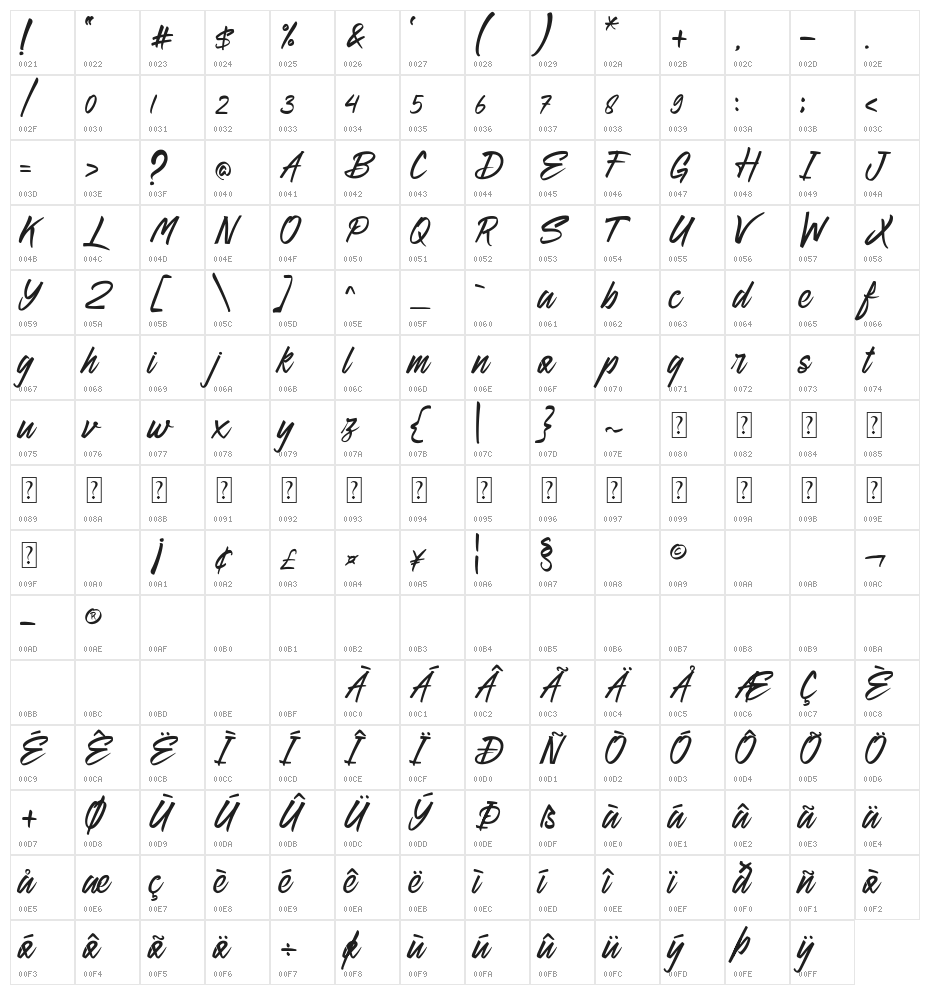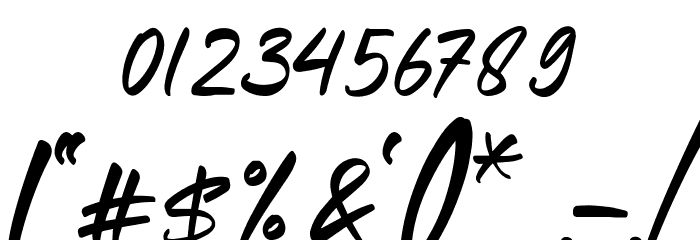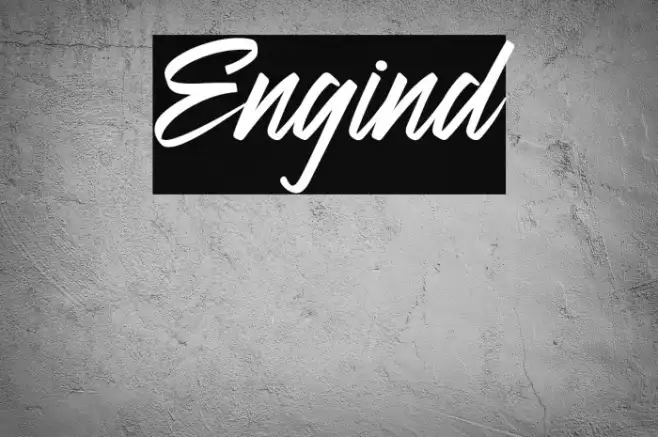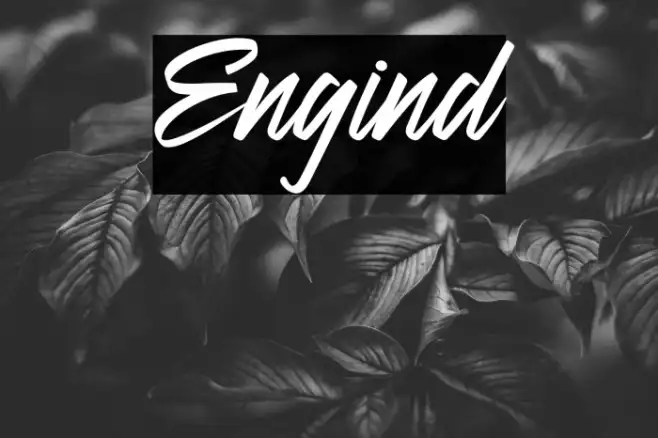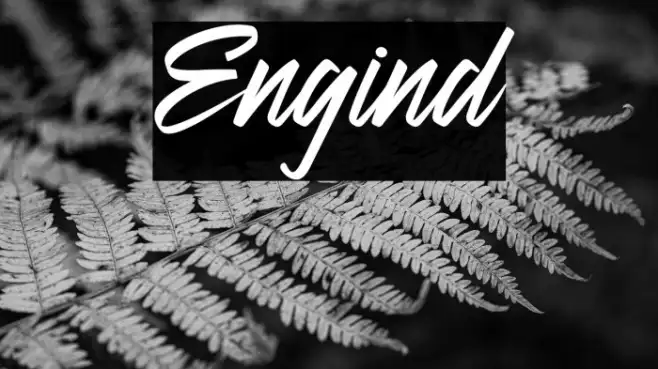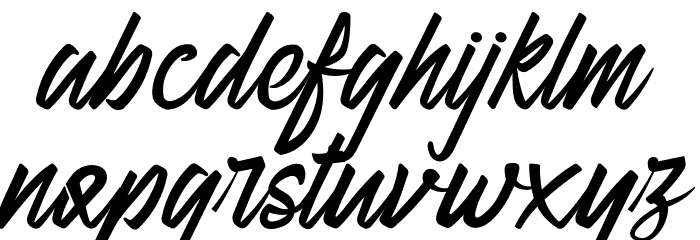
Engind Font
Engind Description
This font features a dynamic and fluid script style, characterized by its elegant and flowing letterforms. The uppercase letters are bold and slightly slanted, giving a sense of movement and energy. The lowercase letters maintain a consistent style, with smooth curves and a connected appearance, enhancing the handwritten feel. The numerals and special characters complement the overall design, maintaining the same fluidity and boldness. This font exudes a sense of sophistication and creativity, making it suitable for various artistic and expressive applications.
| Use Case | Logos, Invitations, Artistic designs |
| Proposed Projects | Ideal for wedding invitations, greeting cards, branding projects, and artistic designs. |